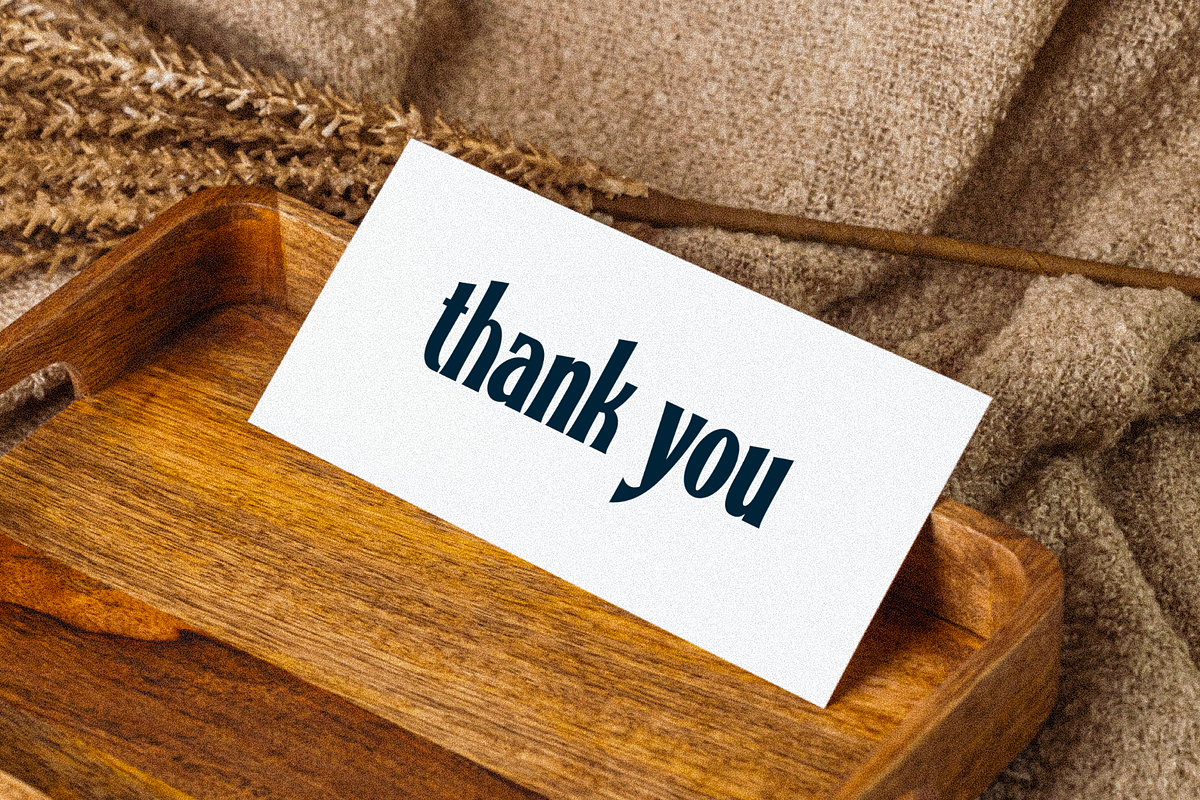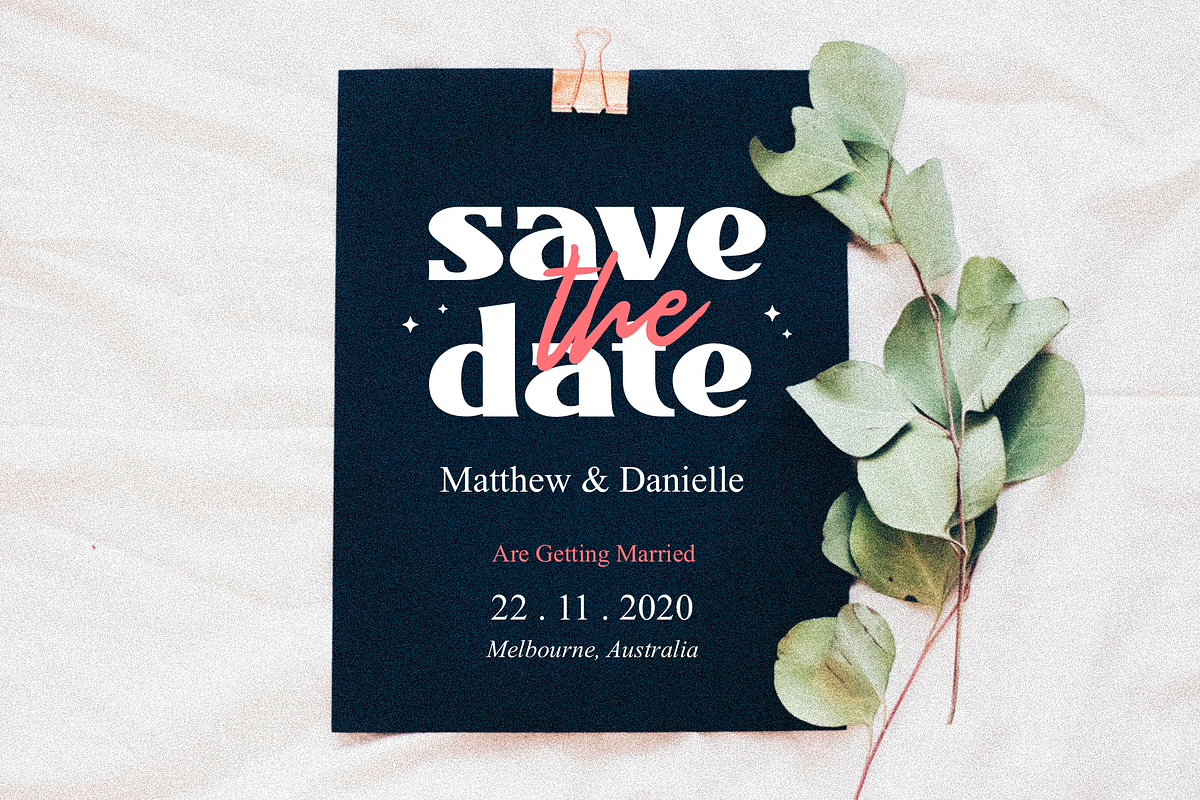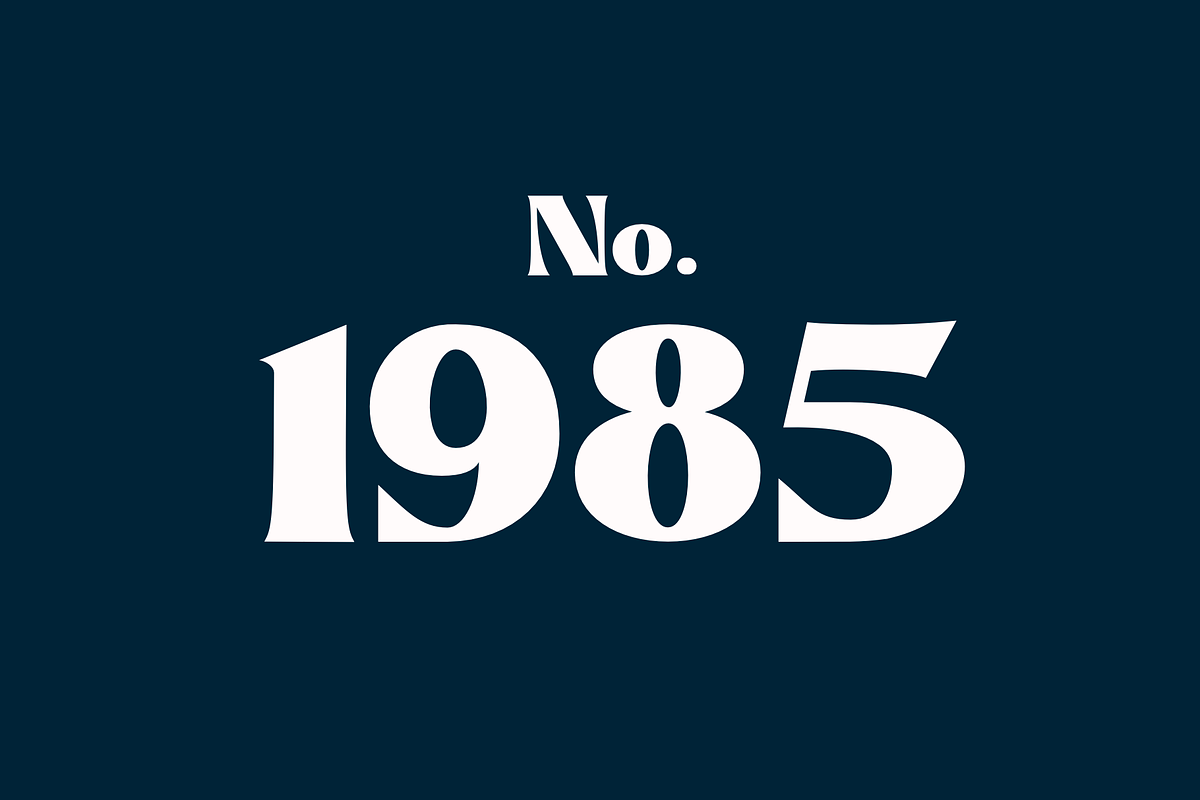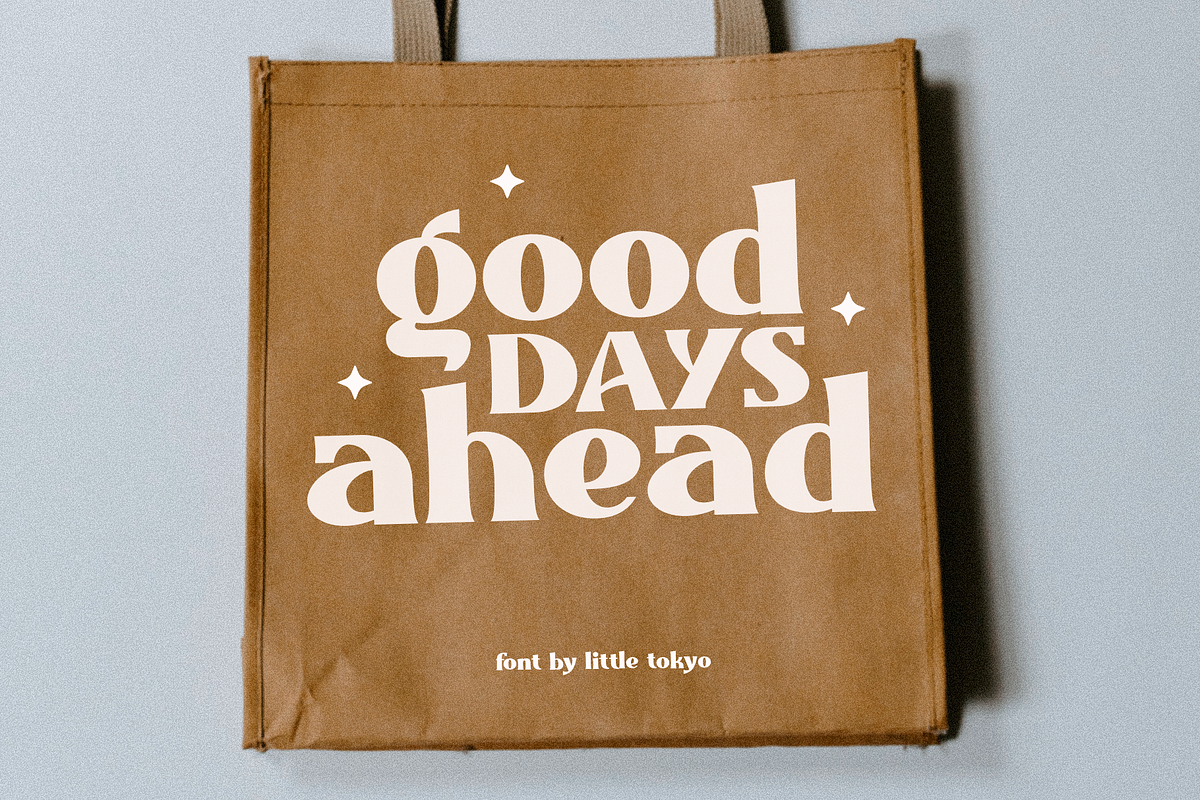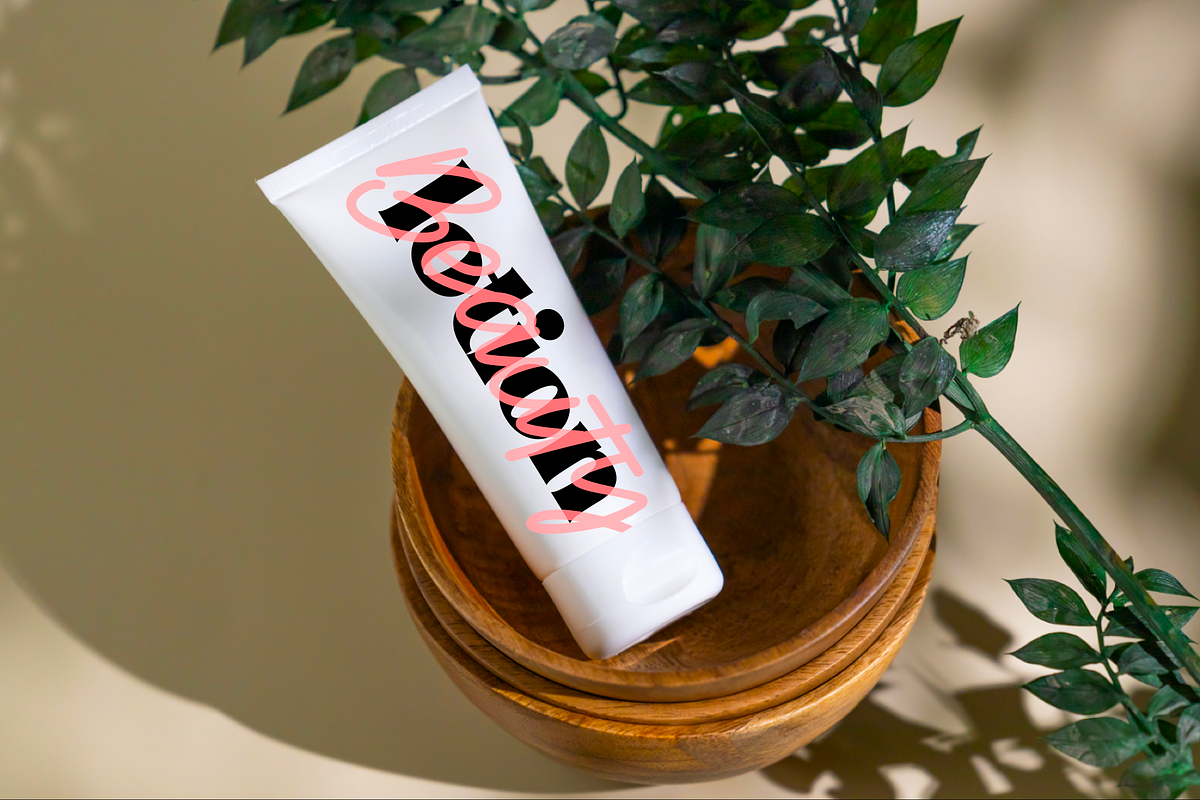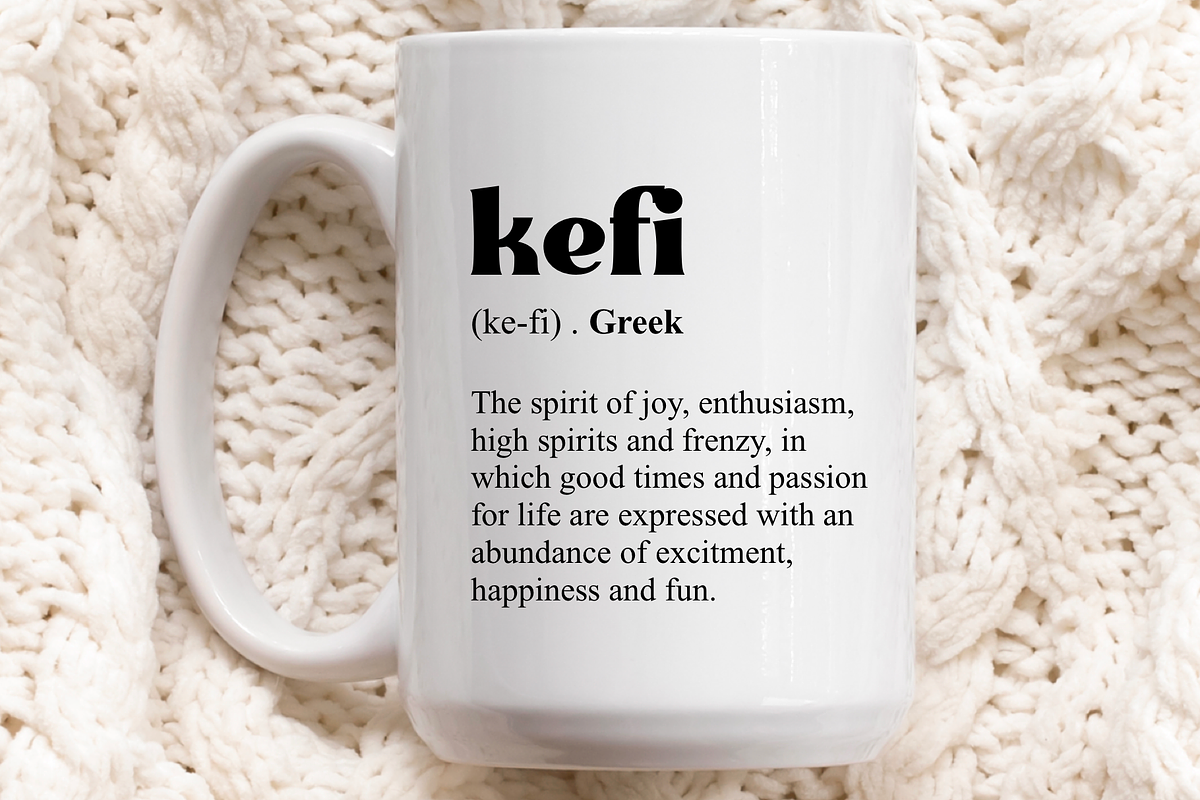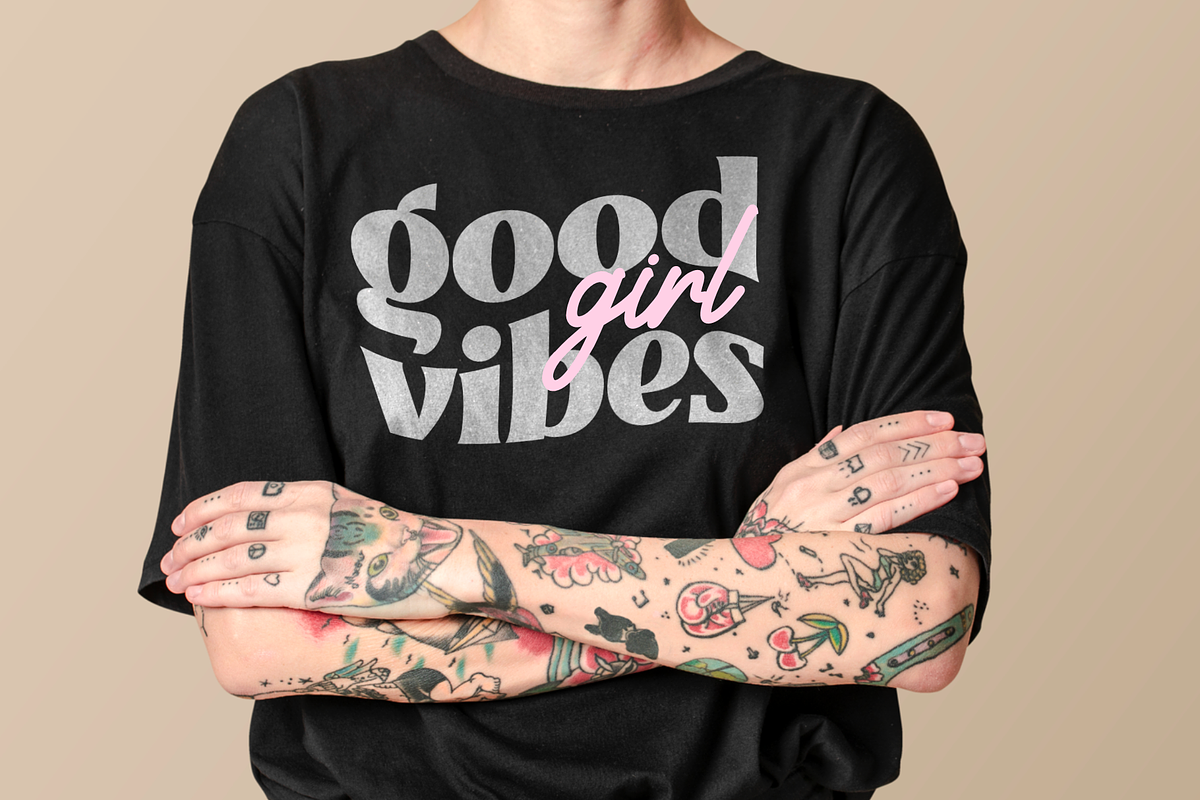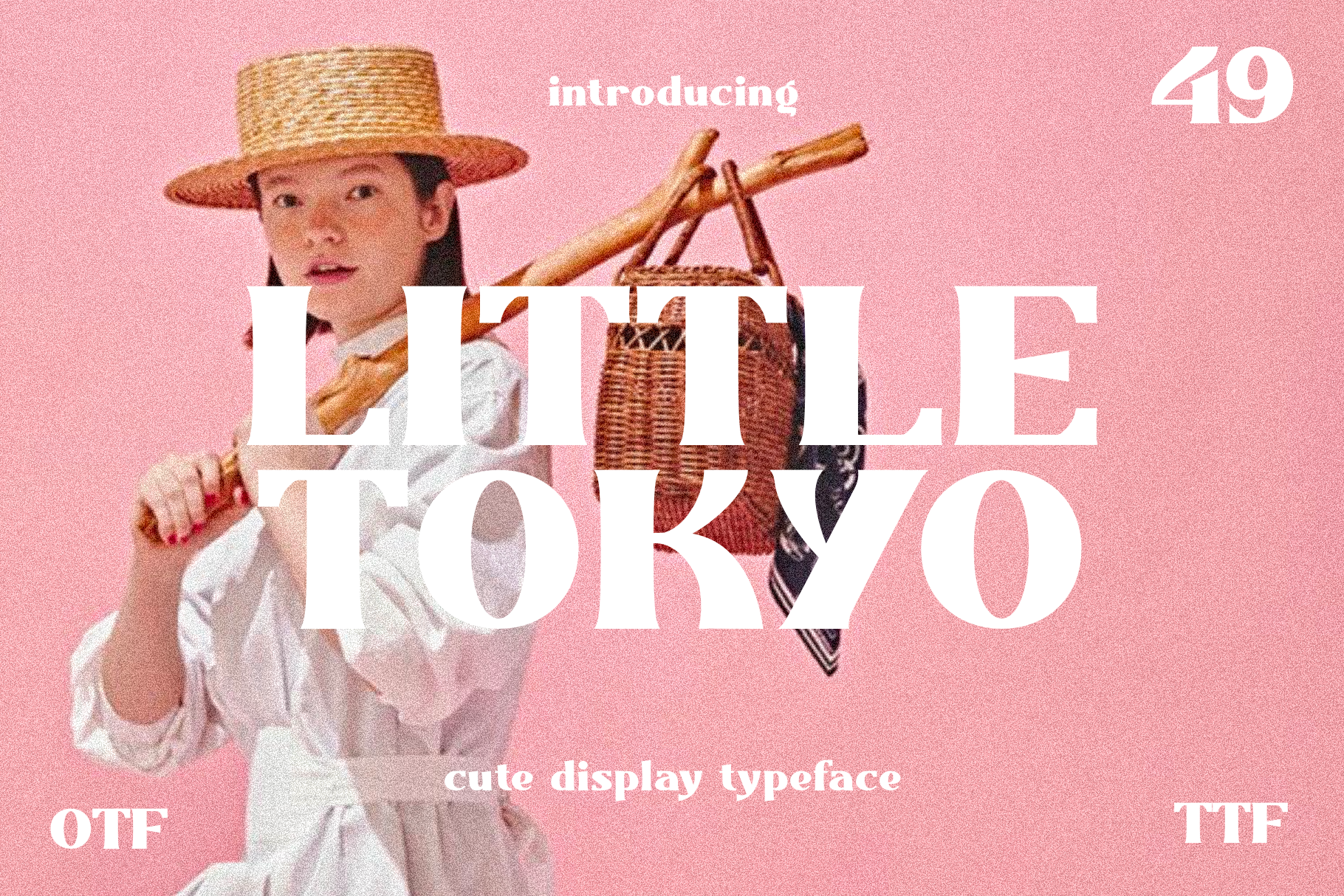
Little Tokyo - Cute Serif Font
Little Tokyo is a font product that offers a unique and charming character display serif cute font style. Its playful yet sophisticated design is inspired by the neon-lit streets and iconic architecture of Tokyo, Japan. The font features soft curves, intricate serifs, and small embellishments that give it a distinct personality.
The cute and whimsical style of Little Tokyo is perfect for use in branding, packaging, and social media graphics. Its legibility and attention-grabbing nature make it ideal for use in headlines, titles, and display text. Whether used for personal or commercial projects, Little Tokyo is sure to bring a touch of personality and character to any design.